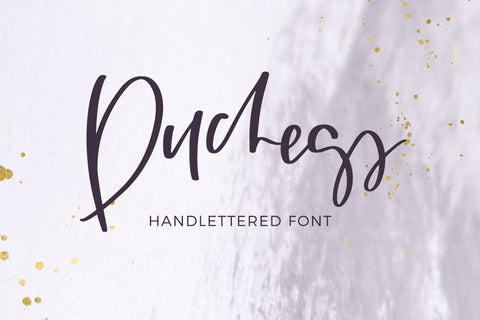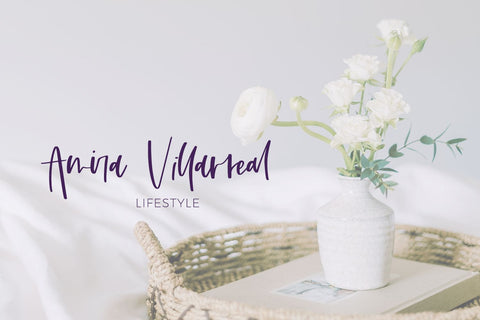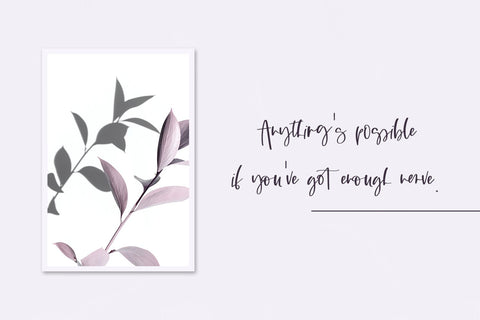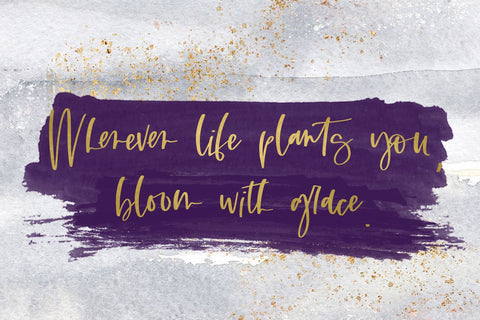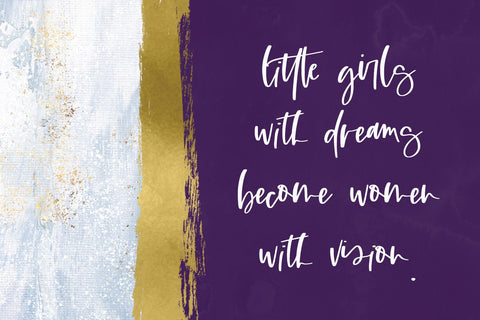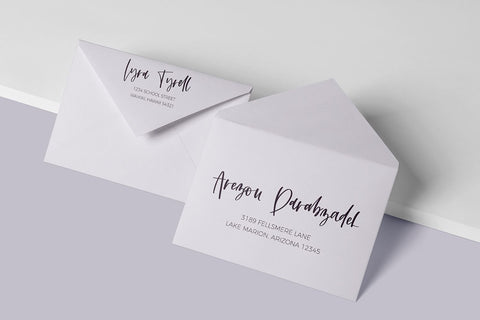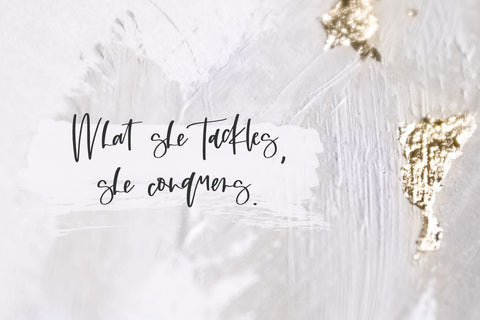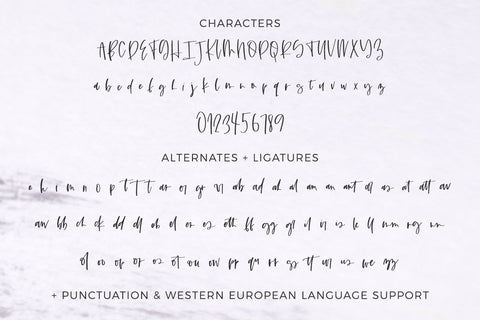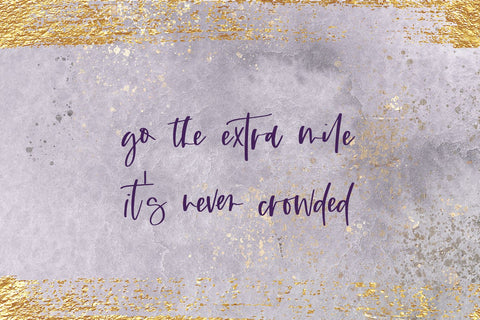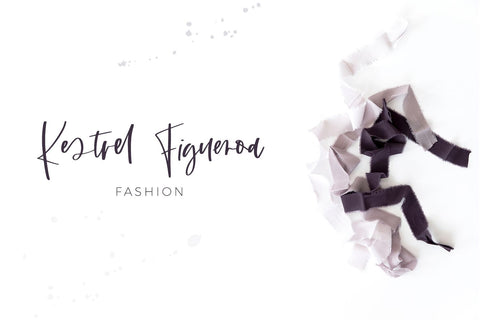
Duchess Script Font
Introducing Duchess Script, a handwritten signature style font. This stylish font features a messy, casual look and ligatures to enhance the flow of the handwriting look & feel of your project!
Duchess Script is best for:
- logos + branding
- website design + website accents - think travel blogs, fashion blogs, & more
- clean print design, like magazines + flyers
- header elements that need handwritten touch
- quote graphics for social media
Duchess includes:
- full upper + lowercase characters
- numbers + punctuation
- Western European Language Support
- 10 alternate characters - e, h, i, m, n, o, p, t, t, and t
- 55 ligatures - ar, er, gr, rr, ab, ad, ah, al, am, an, ant, ar, as, at, att, av, aw, bb, ch, ck, dd, dl, eb, el, er, es, etc, ff, gg, gr, il, ir, is, le, ll, mm, ng, nn, ol, oo, op, or, os, ot, ou, ow, pp, qu, ss, tt, ur, us, ww, zz